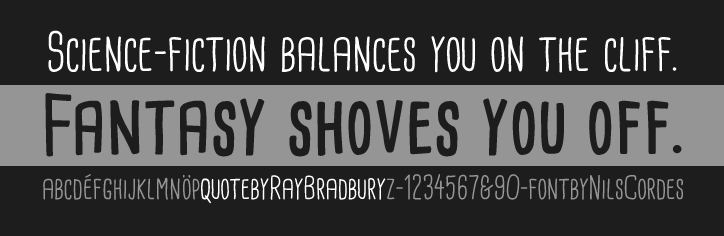
Preview and download Cardenio Modern Font. Created by Nils Cordes in Script Handwritten styles with 100% Free license.
A handwritten font with u&lc capitals. Perfect for quotes, notes and anything that's worth saying. Free for personal and commercial use; just credit the designer. And I'm always happy to see images of the font in use, so do not hesitate to contact me. -- Version history: Sep 28, 2013 - initial release Jun 8, 2014 - added boldface, cleaned up and added some glyphs Aug 15, 2016 - added Polish language support |